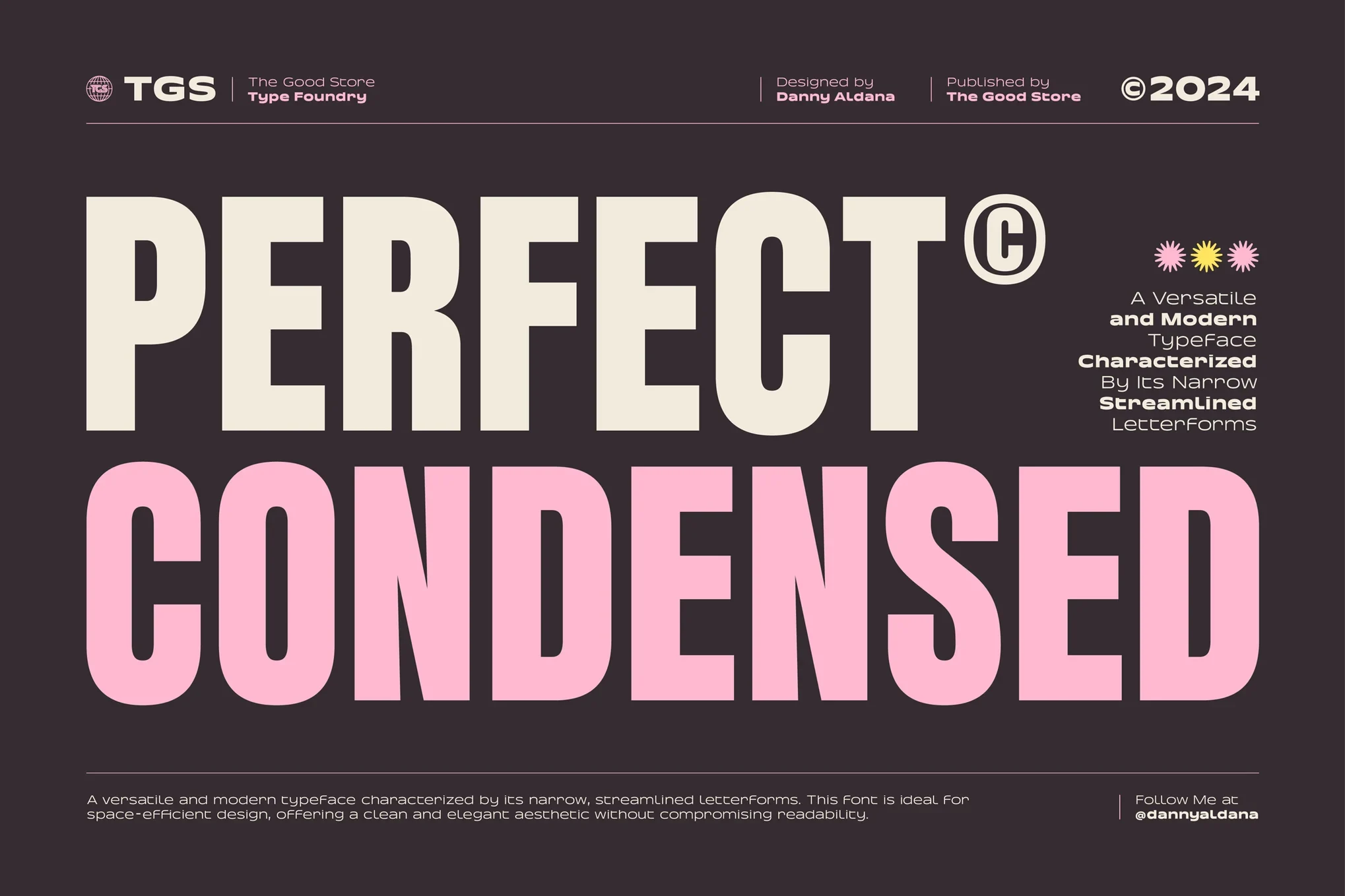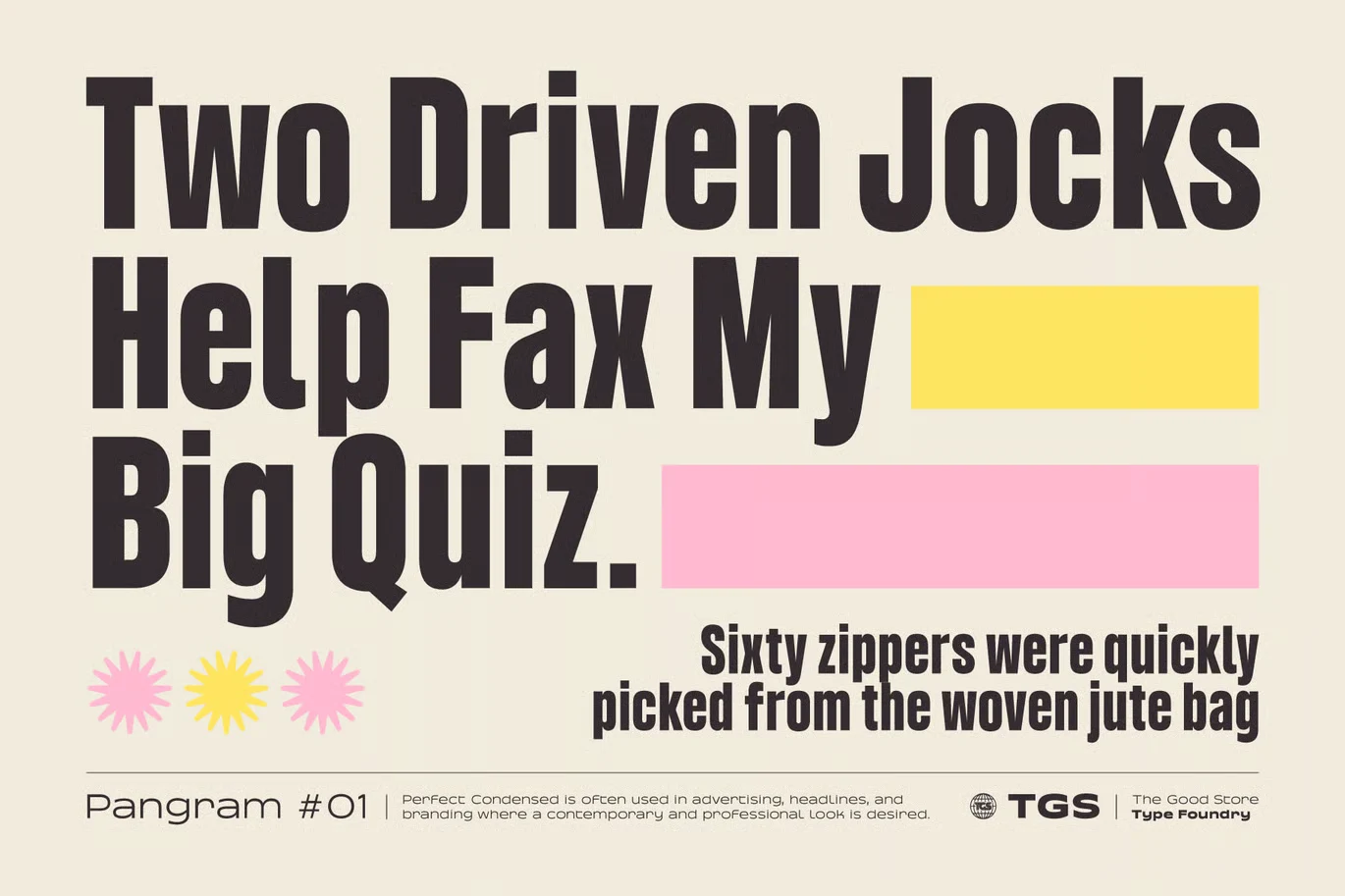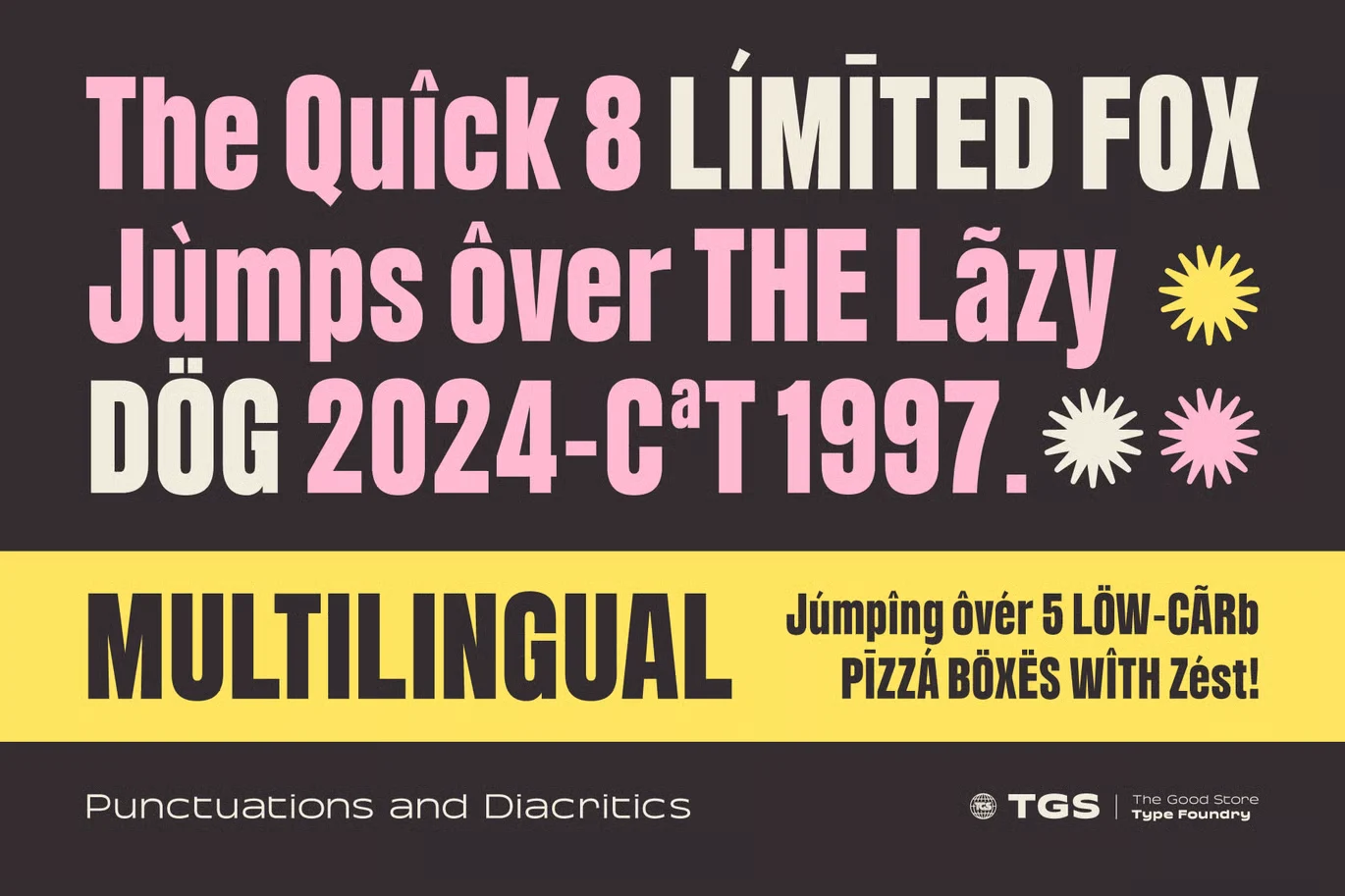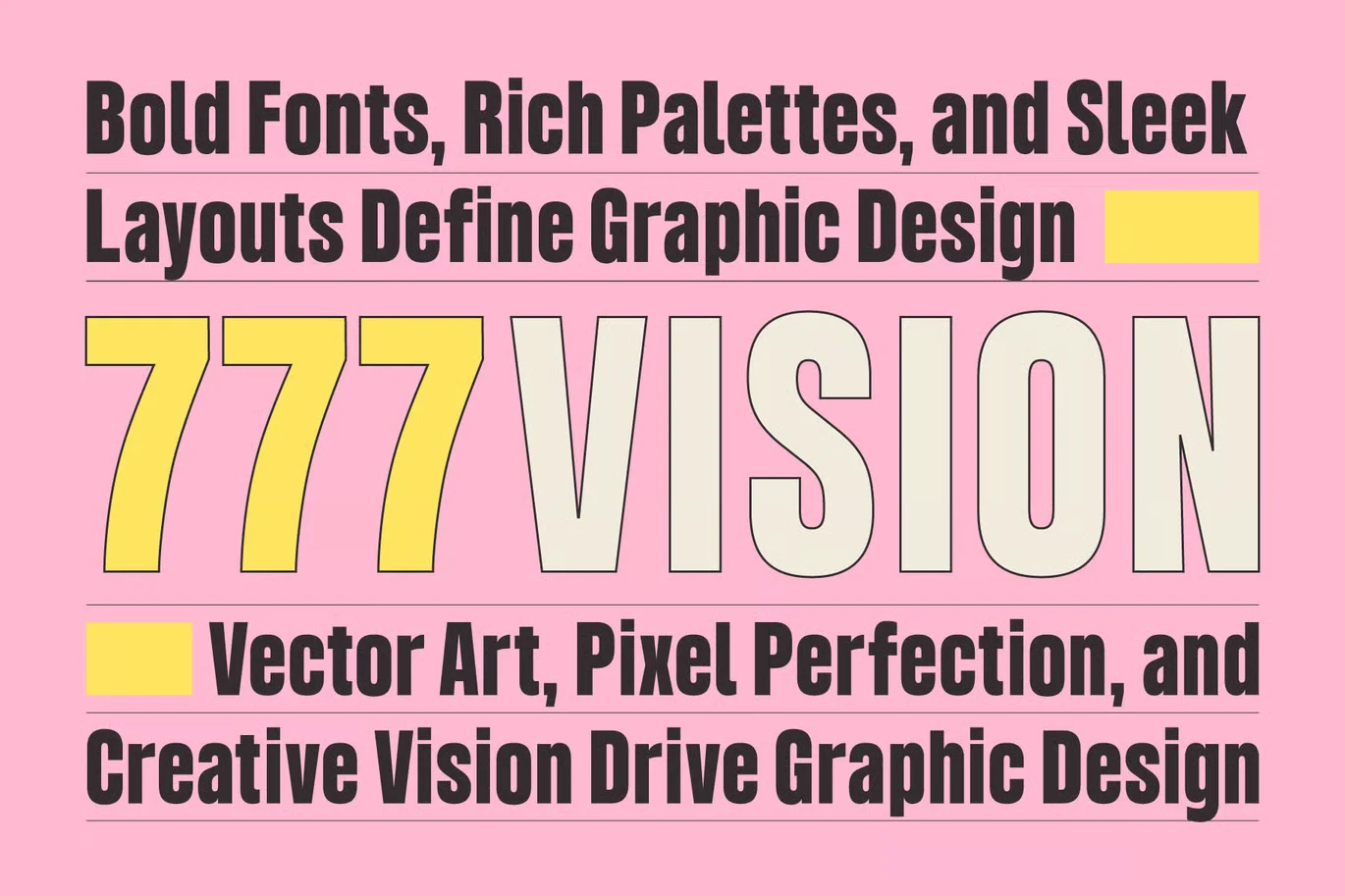
About Perfect Condensed Font
I’m a typographer and graphic designer who spends most days creating brand systems and visual identities. While working on a sleek branding project, I needed a typeface that felt clean but made an impact in limited space. That’s when I found the Perfect Condensed Font. I was browsing through a font library looking for something tall, narrow, and modern. I downloaded it, tested it in headers and body text, and the results were exactly what I needed. It’s not just functional. It has personality. So I wanted to write this quick review to share how it worked for me and why you might love it too.
What is Perfect Condensed Font?
Perfect Condensed Font is a tall and narrow typeface designed to save space without sacrificing elegance. The clean lines and condensed structure make it ideal for modern design projects, especially when you’re aiming for both style and practicality. It works beautifully in both print and digital formats, and it supports multiple font weights to give your layout visual variety.
It is part of a growing family of condensed sans-serif fonts that perform well in headlines, branding projects, and interface layouts. Its condensed display style gives a retro touch when used creatively, but it still fits perfectly in contemporary and professional design environments.
Font Features
What makes Perfect Condensed Font stand out is its strong letterform. The structure is narrow but very readable. The strokes are even, which gives the font a bold yet balanced presence. You can use it for bold messages, clean product names, or even detailed typography layouts. It blends classic condensed characteristics with a fresh, modern look.
Designers working with condensed fonts often look for something with a strong vertical emphasis. This font does just that. The condensed sans serif font version is perfect for branding projects that need to make a bold statement in limited space.
Every weight feels crafted. Whether you’re using it in a font design layout or just for a font preview, it holds up. It’s elegant, practical, and simply put, it’s perfect.
Where can you use this font?
Perfect Condensed Font works best in places where space is tight but style matters. Think product packaging, editorial headers, web banners, and modern portfolio layouts. It’s especially effective in mobile UI designs because of its tall and narrow shape. When working with condensed sans-serif fonts, legibility is everything and this one delivers.
If you’re designing a logo, this font makes a bold condensed mark that stays readable at different sizes. It’s perfect for attention-grabbing titles and high-impact branding. You can use condensed fonts like this in web fonts, posters, presentations, or professional design projects.
Because of its clean geometry, it pairs well with script fonts, serif fonts, and even hand-drawn font styles. You can find the perfect match depending on the vibe you’re aiming for. It’s not just a compressed font for digital use. It performs just as well in print.
I used it for a branding project where I needed strong hierarchy in a very compact space. It worked for both headers and subheads without looking forced or cramped. Fonts like this help you find the perfect balance between clarity and personality.